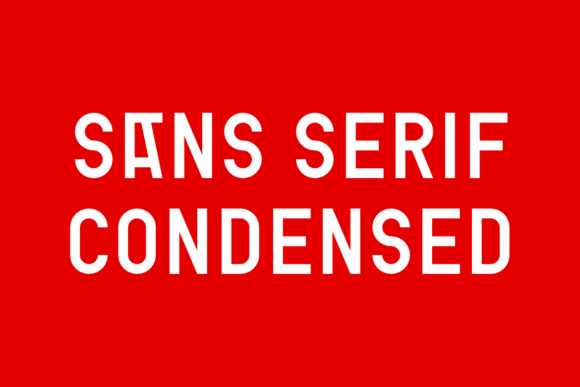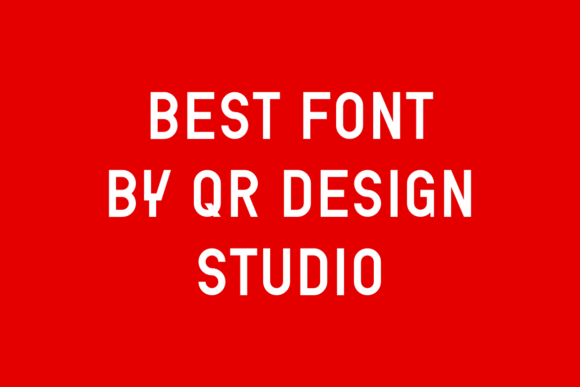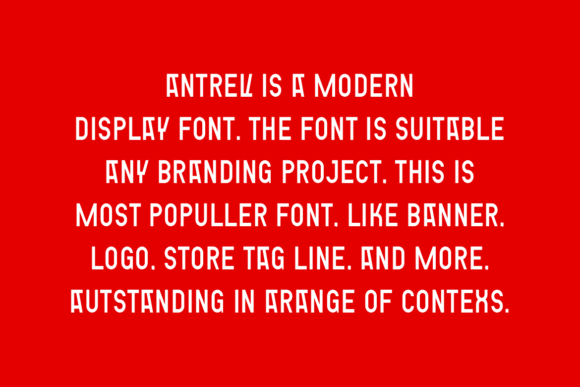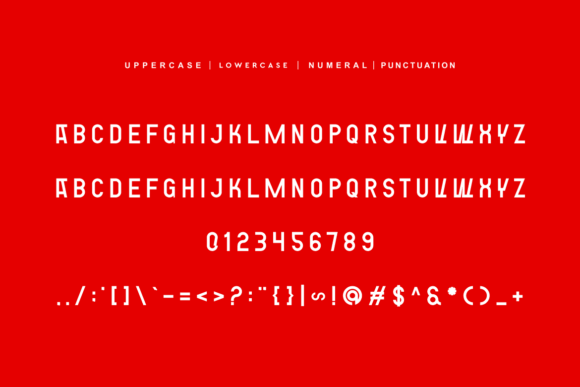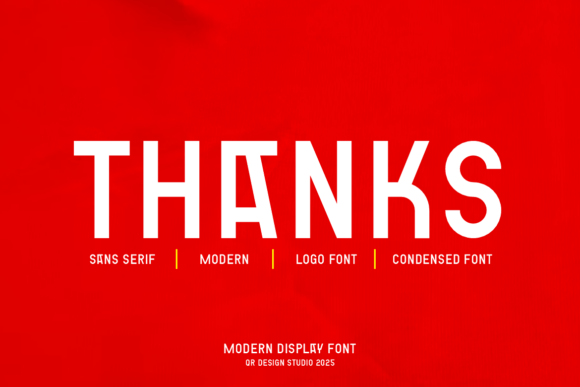
Discovering the Perfect Fit: The Unconventional Charm of the Antrev Font
Have you ever stared at a blank canvas, trying to come up with the perfect font to match your creative vision? It’s a moment that every designer knows all too well – the struggle to find that one font that elevates your design from ordinary to extraordinary. For those who have been searching, we’re excited to introduce you to the Antrev Font, a unique and captivating sans serif font that’s sure to bring a touch of personality to your next project.
Designed to be versatile and adaptable, the Antrev Font is the perfect choice for designers looking to add a little quirkiness to their work. Whether you’re creating a bold and eye-catching headline or a clean and minimalistic logo, this font is sure to deliver. Its value lies in its ability to seamlessly blend into a wide range of contexts, making it an invaluable addition to any designer’s toolkit.
Antrev Font Key Features
- Unique Characteristics: Antrev Font features a distinctive blend of modern and vintage elements, with clean lines, geometric shapes, and a subtle touch of elegance, making it suitable for a variety of design applications.
- Style Variations: The font family includes multiple styles, including Regular, Bold, Italic, and Bold Italic, allowing designers to create visually appealing and consistent typography across their designs.
Antrev Font Review
Overall, I think Antrev Font is a solid choice for designers looking for a clean and modern sans-serif font. ✨ The font’s minimalist design makes it versatile and suitable for a wide range of applications, from body text to headings. ✨ I particularly like the font’s consistency across various font sizes and styles.
However, I do have a few reservations. ⚠️ One of the main limitations is the font’s lack of character variation. While this can be beneficial for maintaining a consistent design, it can also make the font feel a bit sterile and lacking in personality. ⚠️ Additionally, I’ve noticed that the font can be a bit difficult to read at very small sizes, which may be a concern for designers working with tight constraints.
In terms of overall impression, I think Antrev Font is a reliable choice for designers who value simplicity and consistency. While it may not be the most exciting or unique font, it gets the job done and is easy to work with. If you’re looking for a clean and modern sans-serif font, Antrev Font is definitely worth considering.
- Pros:
- Minimalist design
- Versatile and suitable for a wide range of applications
- Consistent across various font sizes and styles
- Cons:
- Lack of character variation
- Difficult to read at very small sizes
Tips for Getting the Most Out of Antrev Font
Here are some tips for getting the most out of Antrev Font:
- Experiment with different font sizes and styles to find the perfect look.
- Combine Antrev Font with other fonts to create a unique and eye-catching design.
- Use Antrev Font in bold or italic styles to add emphasis to your text.
Here are some common use cases for Antrev Font:
- Logos and branding materials.
- Advertising and marketing materials.
- Graphic design projects.
Alternatives to Antrev Font
The Antrev Font is a sans-serif font known for its clean and modern aesthetic. However, designers may be looking for alternative fonts that offer similar characteristics or distinct features. Here are a few options:
Open Sans is a popular sans-serif font designed by Steve Matteson. It is highly legible and works well for body text, making it a great choice for digital products and websites. Open Sans is more versatile than Antrev Font, with a wider range of weights and styles available.
Lato is a sans-serif font designed by Łukasz Dziedzic. It has a clean and modern look, making it suitable for use in digital products, websites, and branding. Lato is more elegant than Antrev Font, with a softer and more rounded feel.